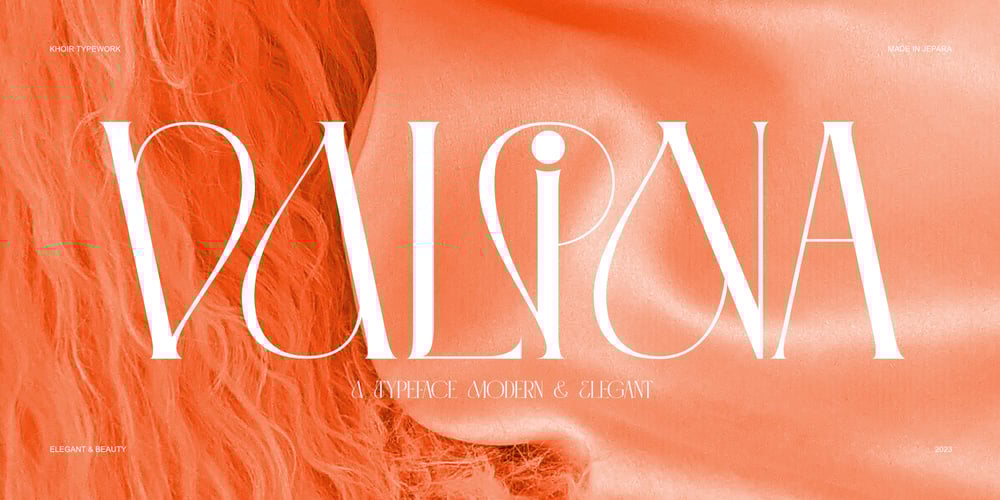
Valina
Valina font
Valina Font Family was designed by Muhammad Romzul Khoir and published by Khoir. Valina contains 1 styles and family package options. Valina – Modern serif has an elegant impression and displays a unique shape in each letter but does not leave the readability of the font itself so this font is good for logos, quotes, posters, covers and many more. Valina Uppercase Lowercase 75+ Language Alternates Font So what are you waiting for? Thank you for seeing